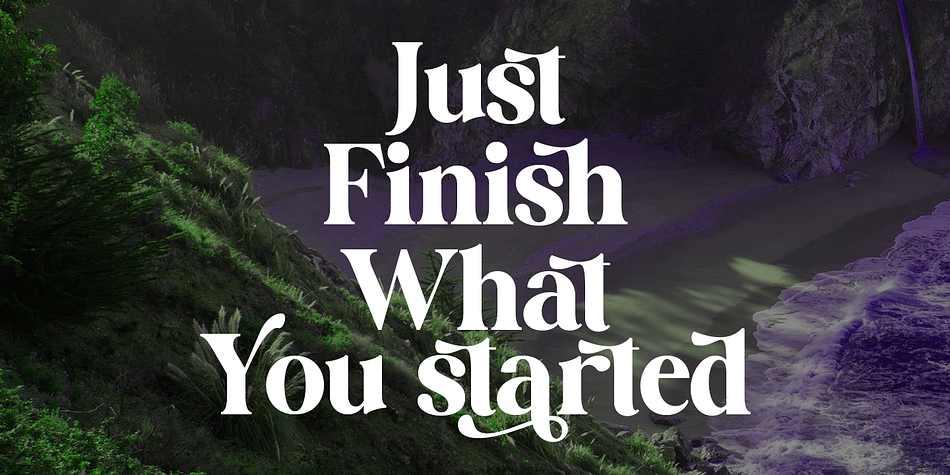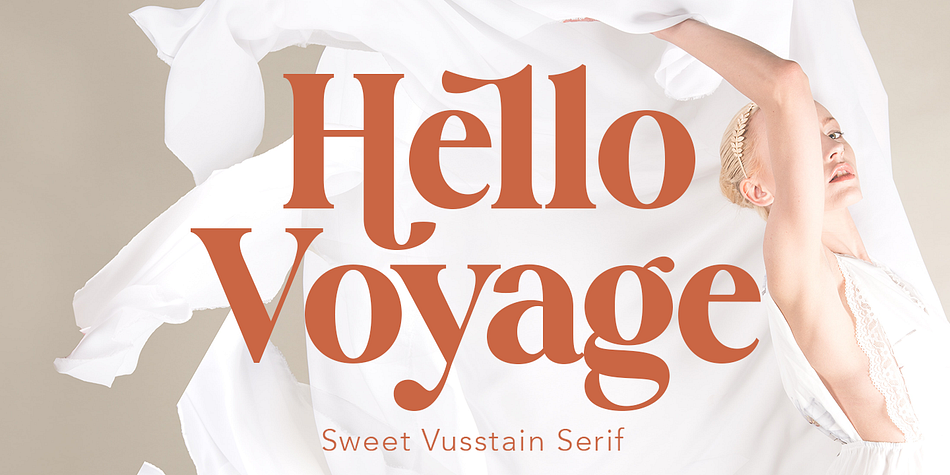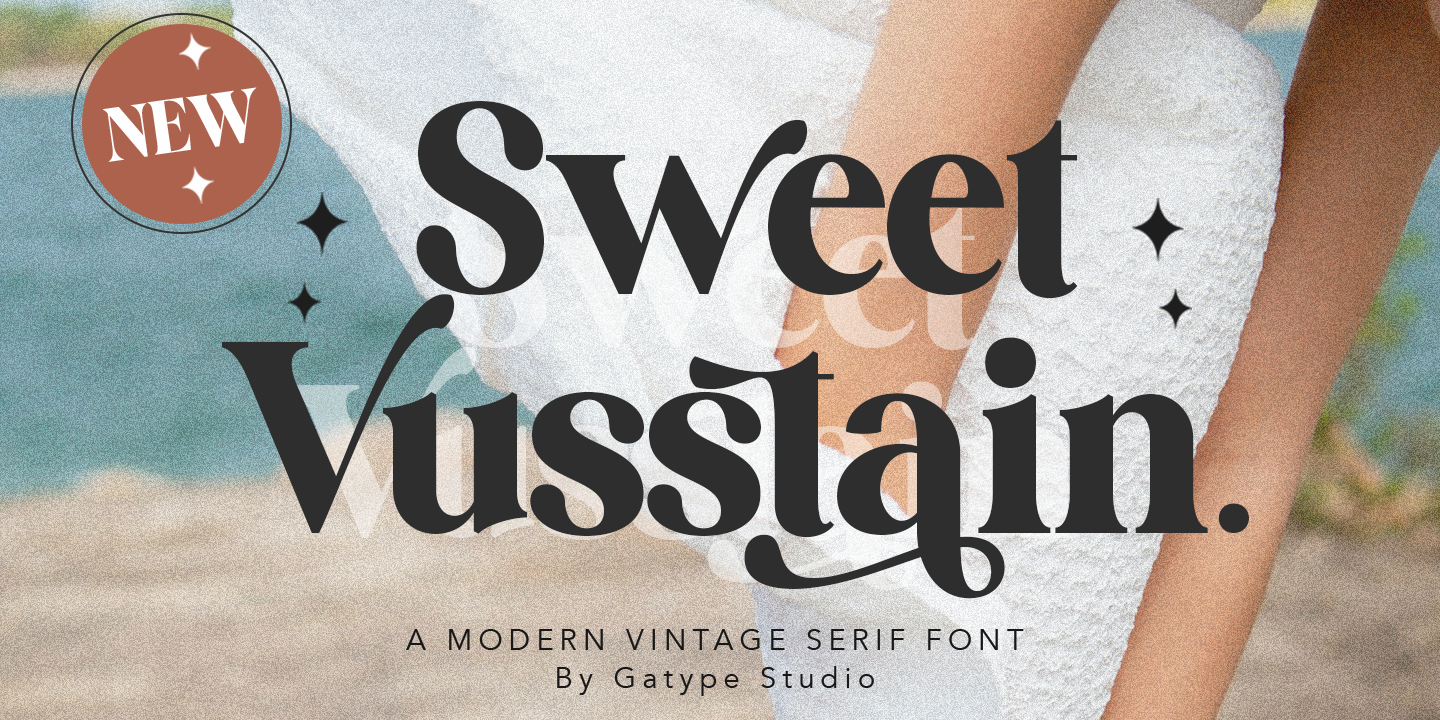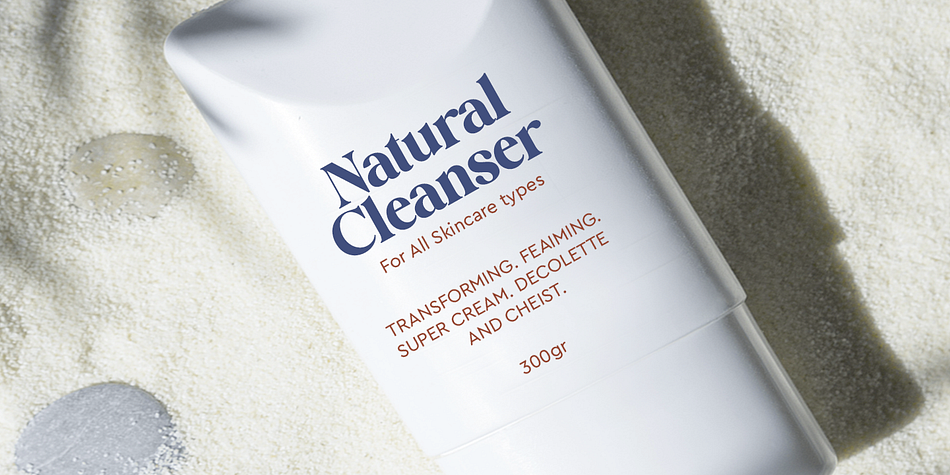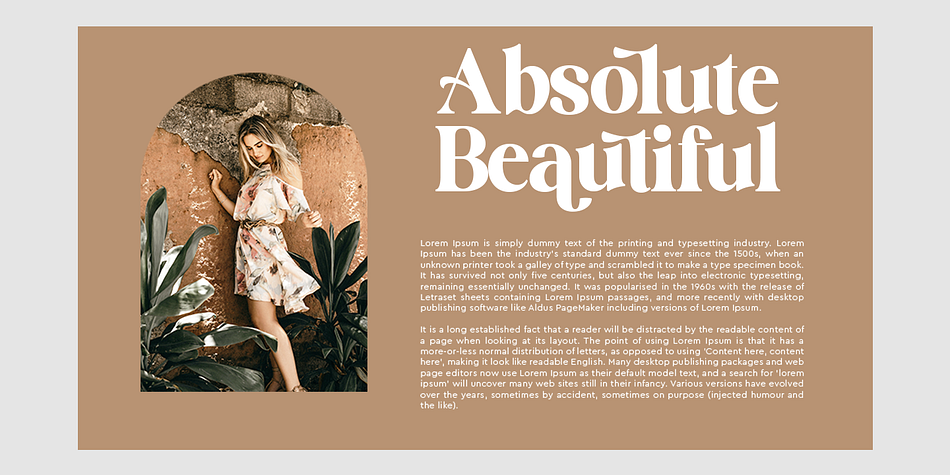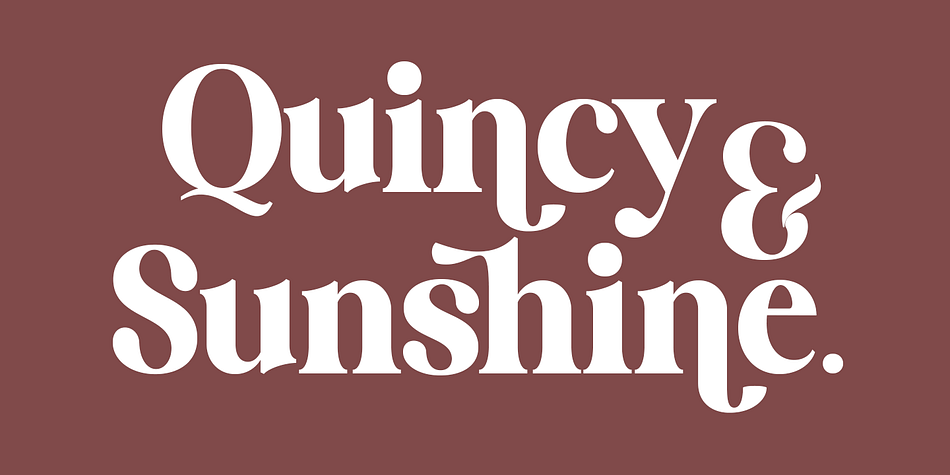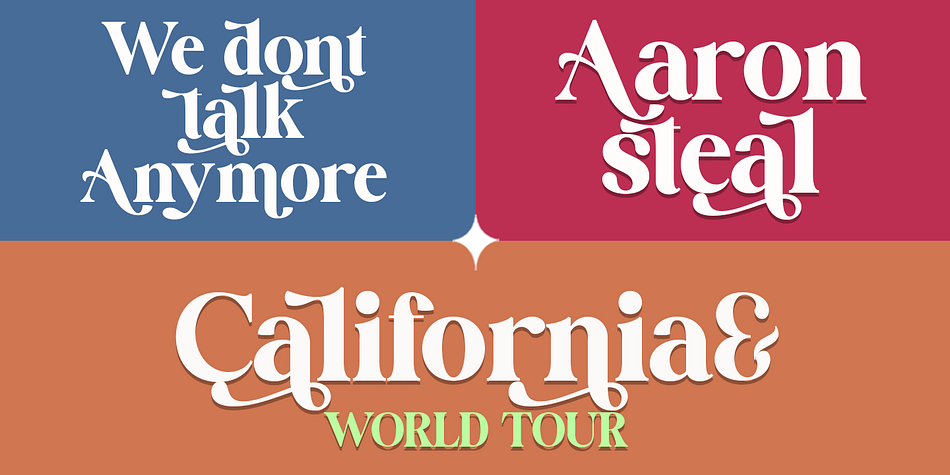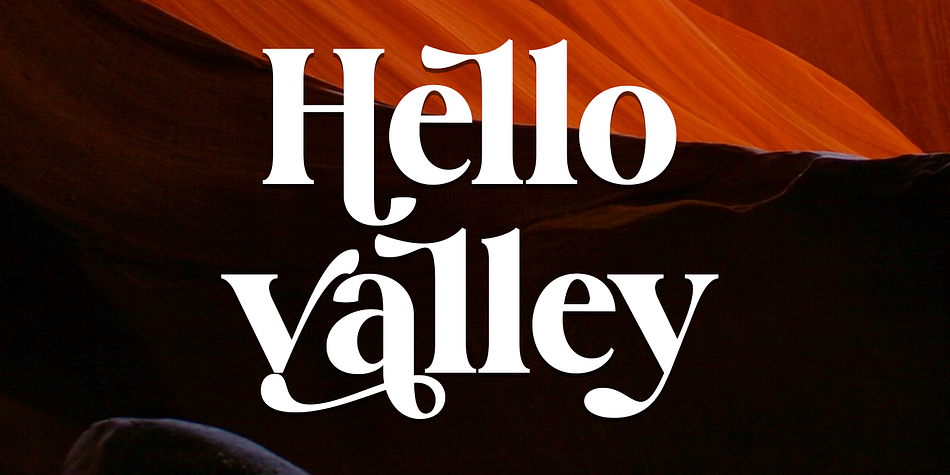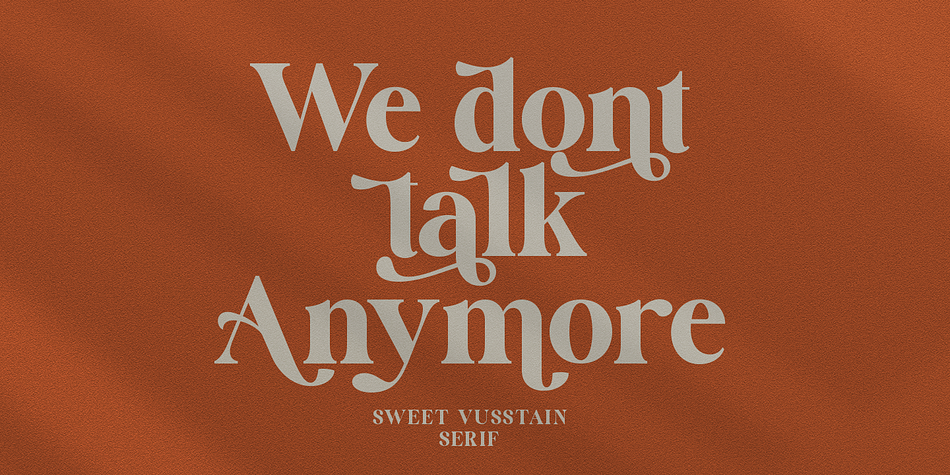
Sweet Vusstain
Sweet Vusstain is a display serif and retro font family published by Gatype.
Sweet Vusstain is a Serif Display Font with a modern, classy, fun, unique and versatile style. It looks amazing on any screen size and is easy to read in any text size. This font also has tons of unique alternatives and binders that will make for stunning design projects.This will add a fun and friendly touch to any of your projects! This font is PUA encoded which means you can access all the glyphs and sweeps easily and more.